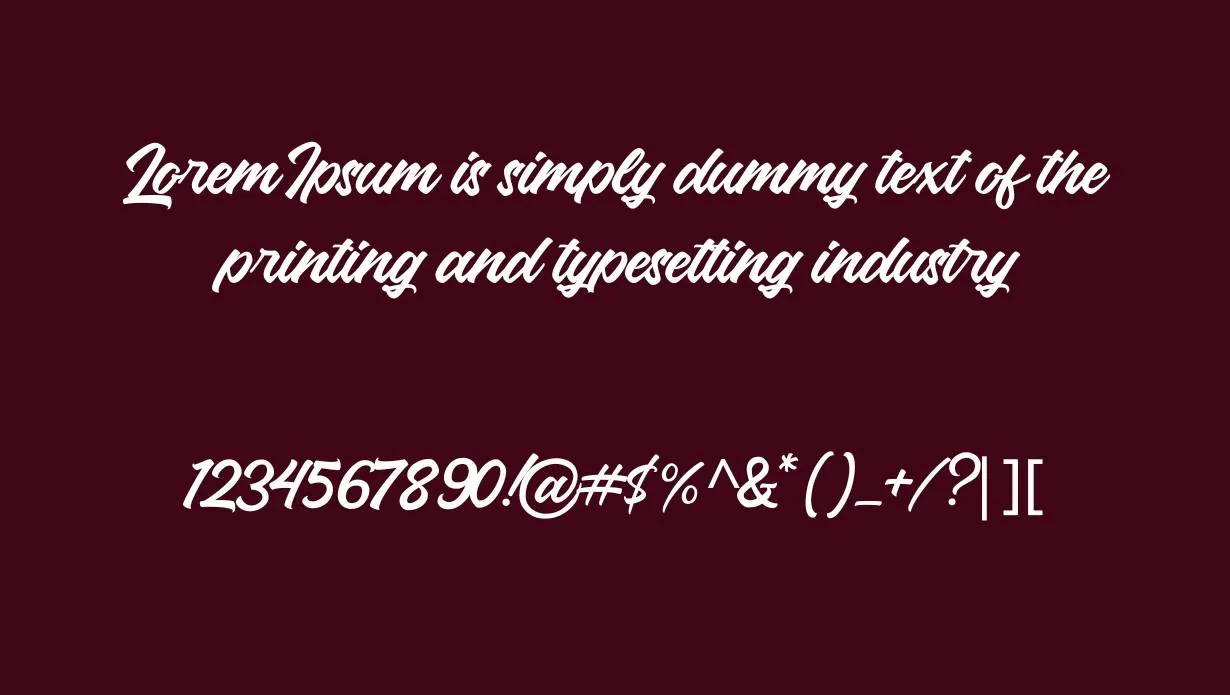
Roland font is the embodiment of timeless elegance, akin to the pages of a classic novel or the strokes of vintage calligraphy. It transforms your words into a narrative steeped in grace, making it a perfect choice for invitations, posters, and projects that yearn for a touch of tradition. With Roland, your text becomes a sophisticated tale, inviting readers into a world of enduring charm.